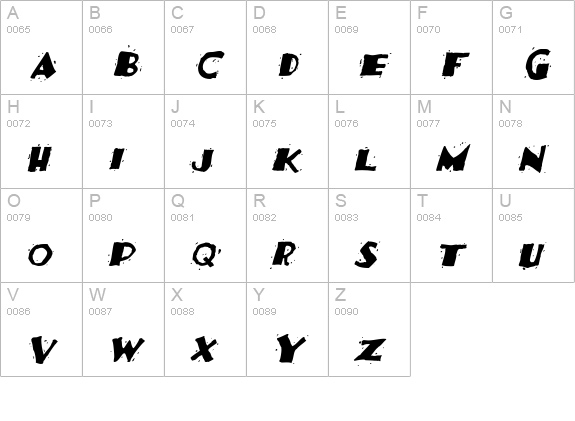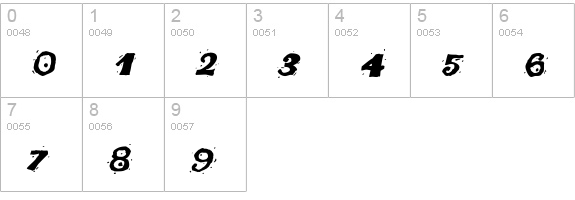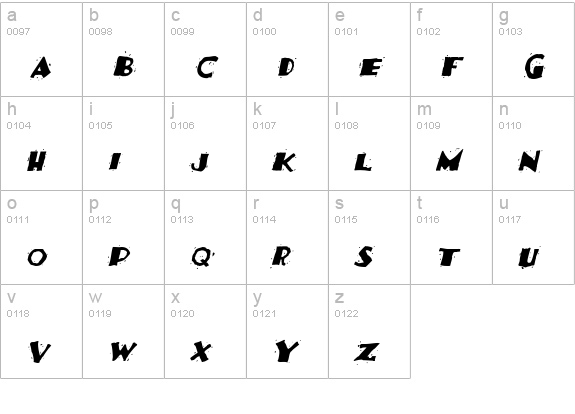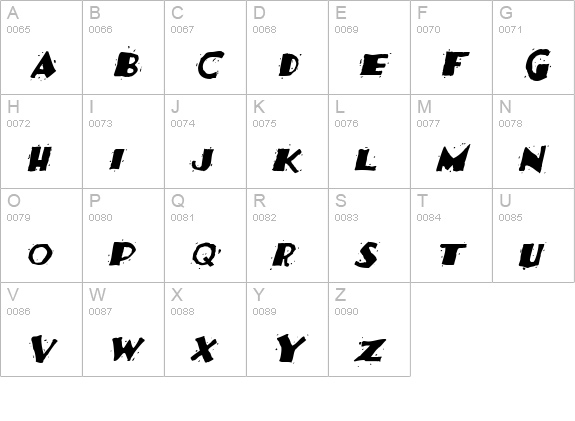
TacoFestiva Italic Font Details
TacoFestiva Italic is a distinctive, italic variant in the TacoFestiva typeface family \xE2\x80\x94 well suited to design and typography projects.
Introducing TacoFestiva Italic font, a delightful and vibrant typeface that will add a zesty touch to any design project. Designed with a perfect blend of playfulness and elegance, TacoFestiva Italic captures the essence of a fiesta, bringing a burst of energy to your creations. With its gracefully slanted and slightly exaggerated letterforms, this font exudes a sense of movement and liveliness. Each character is expertly crafted, featuring intricate details and unique curves that make it truly stand out. Whether used for headlines, logos, invitations, or any other design element, TacoFestiva Italic effortlessly adds a touch of flair and personality. What makes TacoFestiva Italic even more enticing is that it is available for free download at FontsMarket.com. Yes, you read that right - absolutely free! Now, you can easily access this captivating font and elevate your design projects without breaking the bank. So, go ahead and let TacoFestiva Italic bring a taste of celebration to your designs. With its bold and lively presence, this font will surely make your creations pop and leave a lasting impression. Download TacoFestiva Italic today and let the festivities begin!